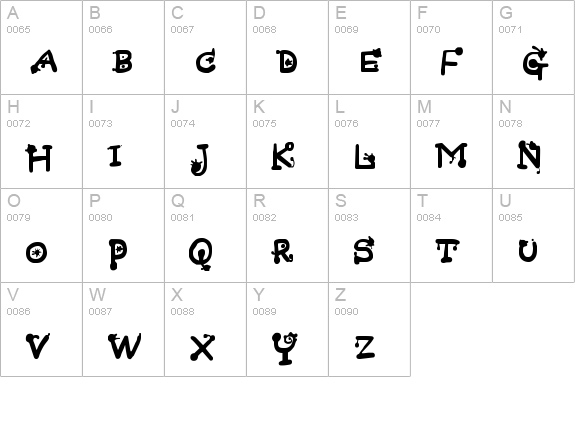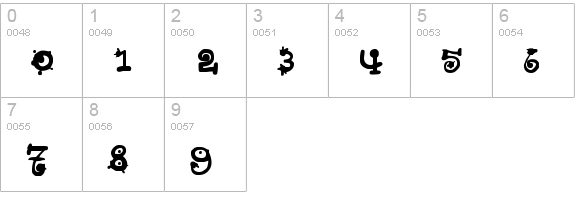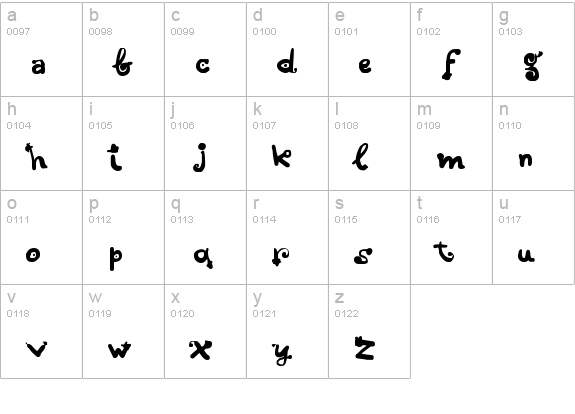
HotSauceC Font Details
HotSauceC font is a stunning display font that exudes warmth and spice, perfect for adding a fiery touch to your designs. With its bold and edgy style, this font is sure to make a statement and grab attention. Whether you're creating posters, logos, or social media graphics, HotSauceC font will bring a touch of flair and excitement to your projects. The best part? HotSauceC font is completely free to download at FontsMarket.com! This means you can easily add this eye-catching font to your collection without spending a penny. Don't miss out on the opportunity to spice up your designs with HotSauceC font - download it today and let your creativity sizzle!